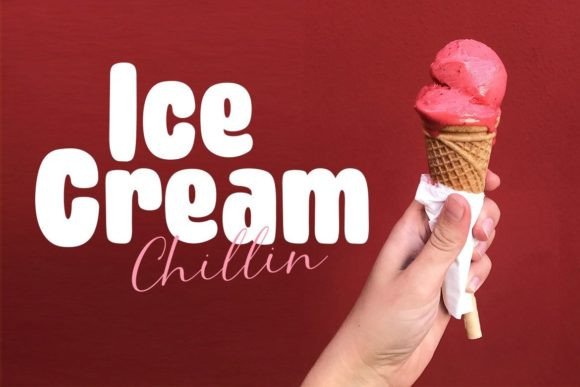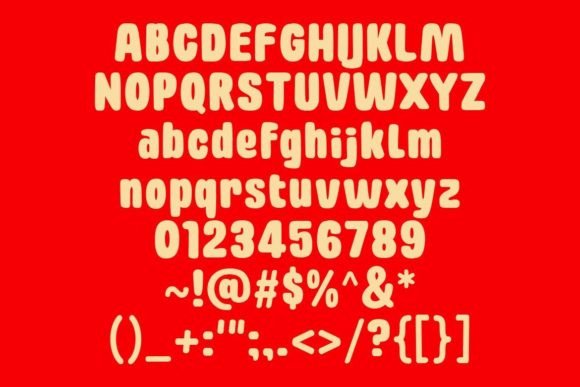
Introducing El Mojo: The Sweetest Font for Your Designs
Have you ever been in the middle of a design project, and suddenly, you’re stuck on finding the perfect font? I recall a recent experience where I was working on a branding project for a new ice cream shop, and I just couldn’t find a font that captured the sweet and playful vibe I was going for. That’s when I discovered El Mojo, a delightful font that has become my new go-to for all things fun and visually appealing.
A Personal Review of El Mojo
I’m excited to share my honest review of El Mojo, and here’s what I love about it:
- ✨ Smooth and elegant curves that make it perfect for logos, branding, and posters
- ✅ Highly versatile and adaptable to various design projects, from kids’ books to food and beverage branding
- 💕 A sweet and playful personality that adds a touch of whimsy to any design
- 📚 Extensive language support and OpenType features for added creativity
While El Mojo is an amazing font, there are a few minor quirks to be aware of:
- 🤔 Some characters may appear a bit narrow or condensed, which can affect readability at smaller font sizes
- ⚠️ Limited availability of certain stylistic alternates, which may require additional design workarounds
The Story Behind El Mojo
El Mojo was designed with the intention of creating a font that’s as sweet as your favorite treat. The designer aimed to craft a font that’s both elegant and playful, making it perfect for a wide range of design projects. Whether you’re working on a branding project, a kids’ book, or a food and beverage campaign, El Mojo is sure to add a touch of whimsy and fun to your designs.
| Font Name | El Mojo Font |
| Author | konstantinestudio |
| What is El Mojo’s personality? | El Mojo is a sweet and playful font with a smooth, elegant feel. |
| Is El Mojo suitable for body text? | While El Mojo is primarily designed for display text, it can be used for body text in certain contexts, such as in children’s books or creative writing projects. |
| Does El Mojo support multiple languages? | Yes, El Mojo has extensive language support, making it a great choice for international design projects. |
El Mojo is a versatile and delightful font that’s sure to add a touch of sweetness to your designs. With its smooth curves, playful personality, and extensive language support, it’s perfect for a wide range of creative projects. Try El Mojo today and experience the joy of designing with a font that’s as sweet as your favorite treat!